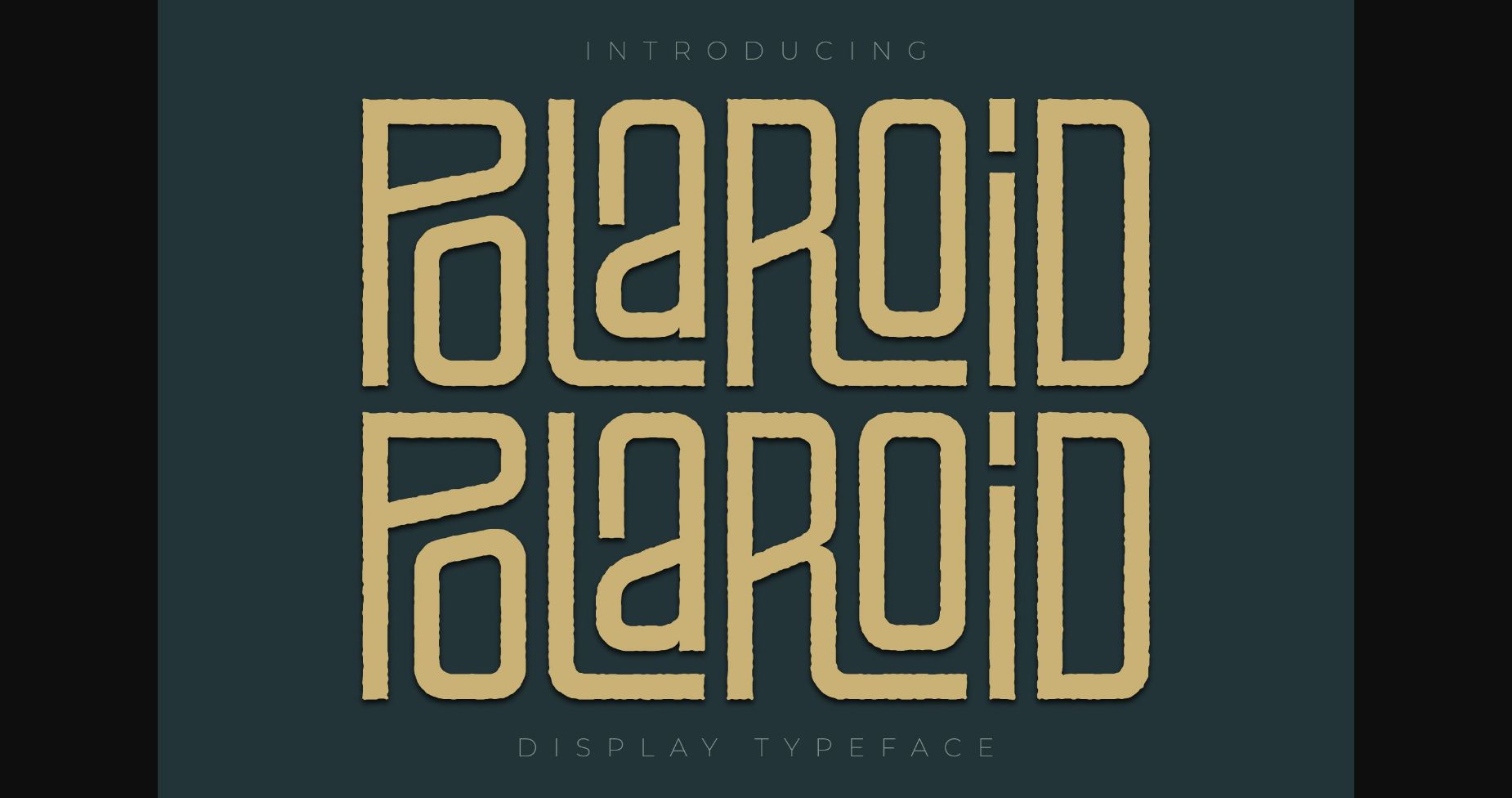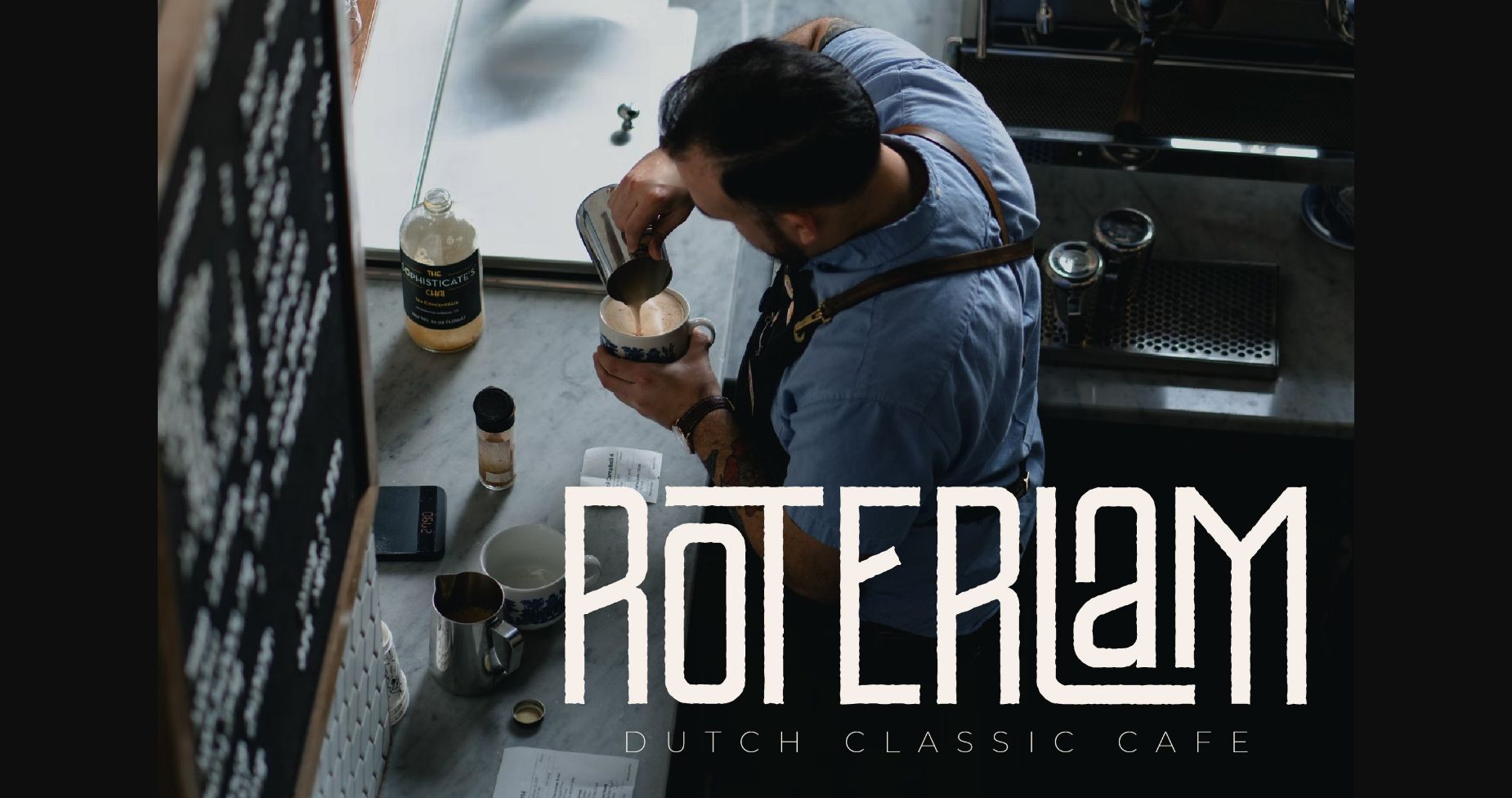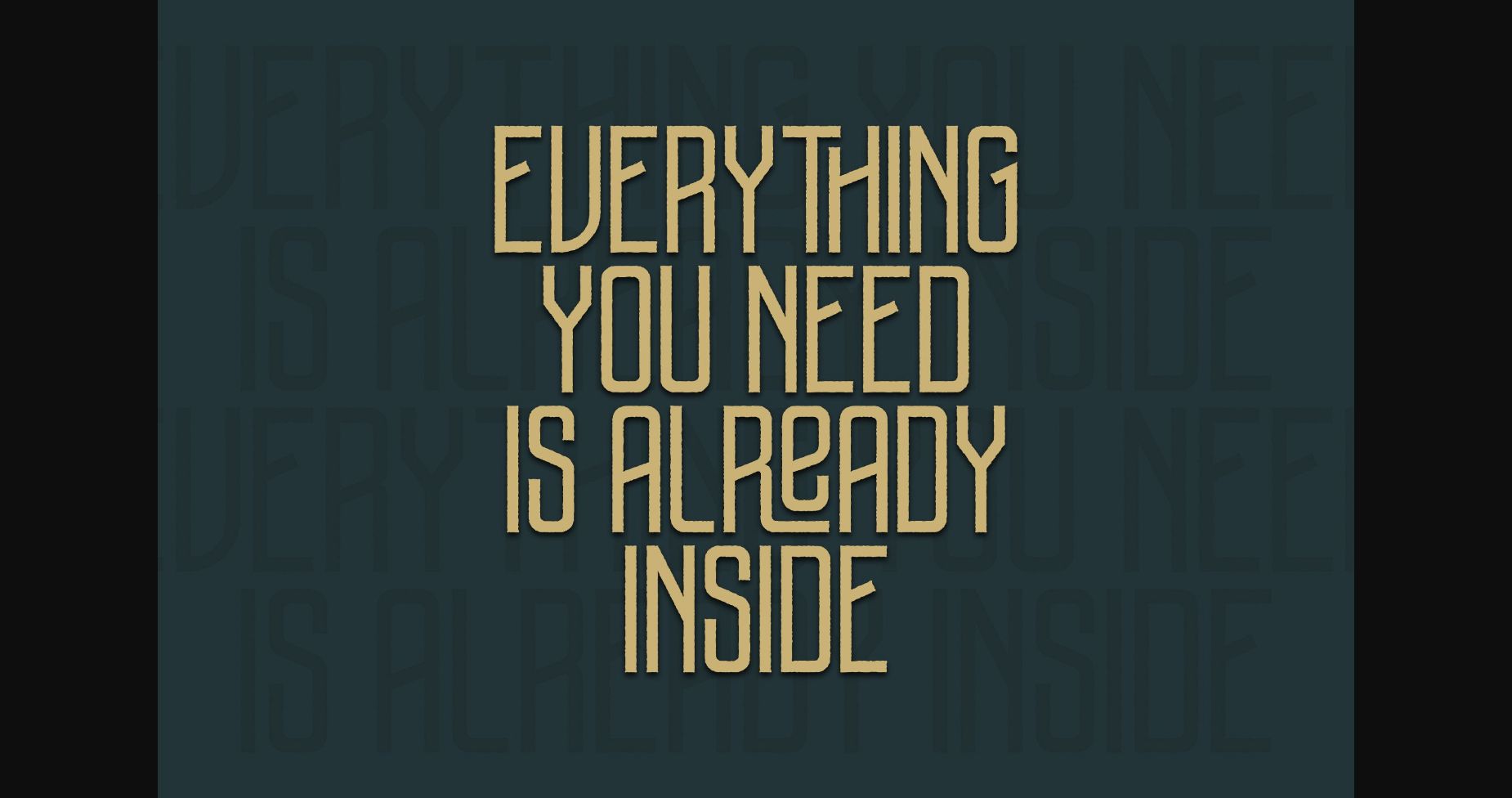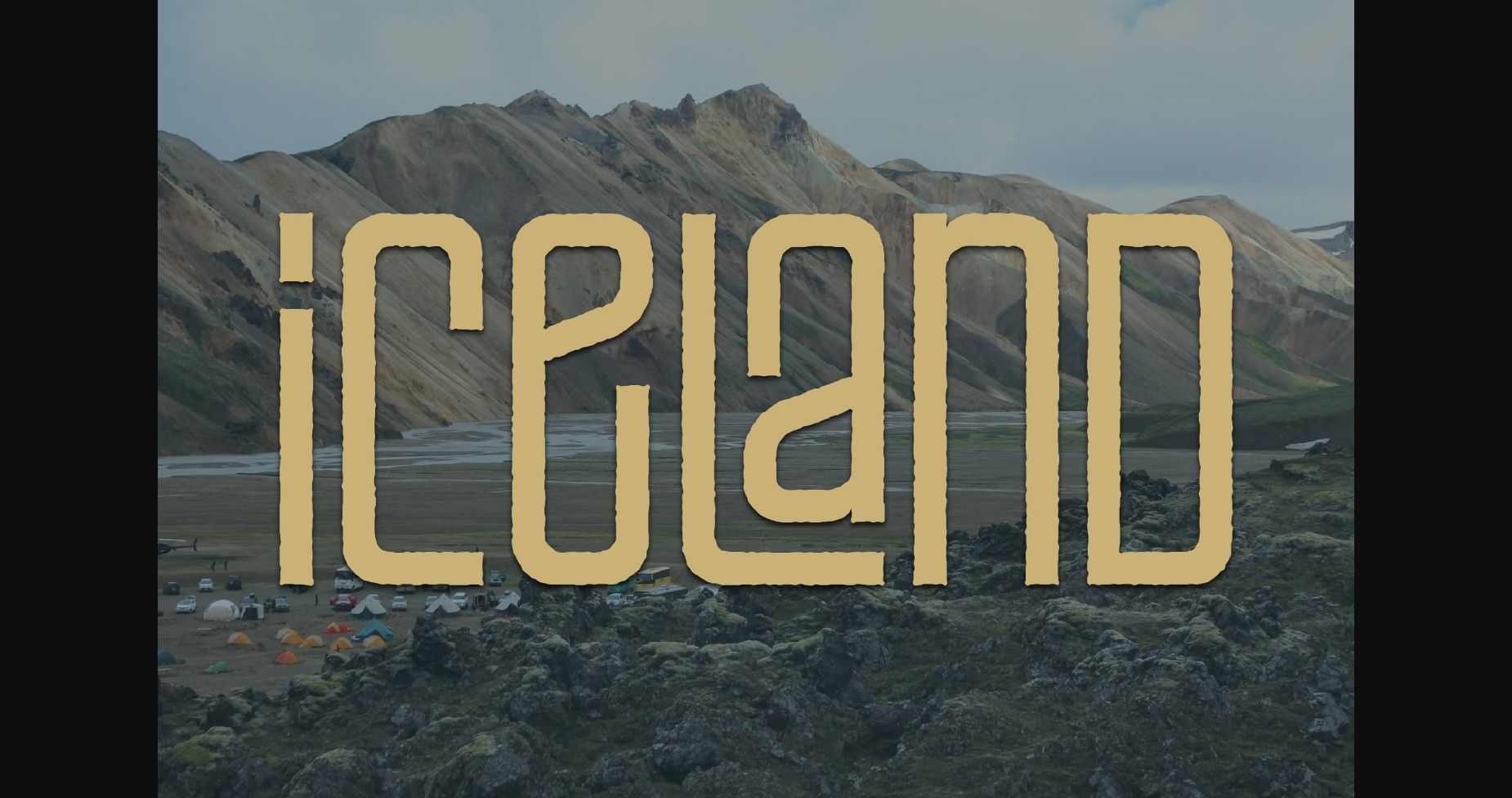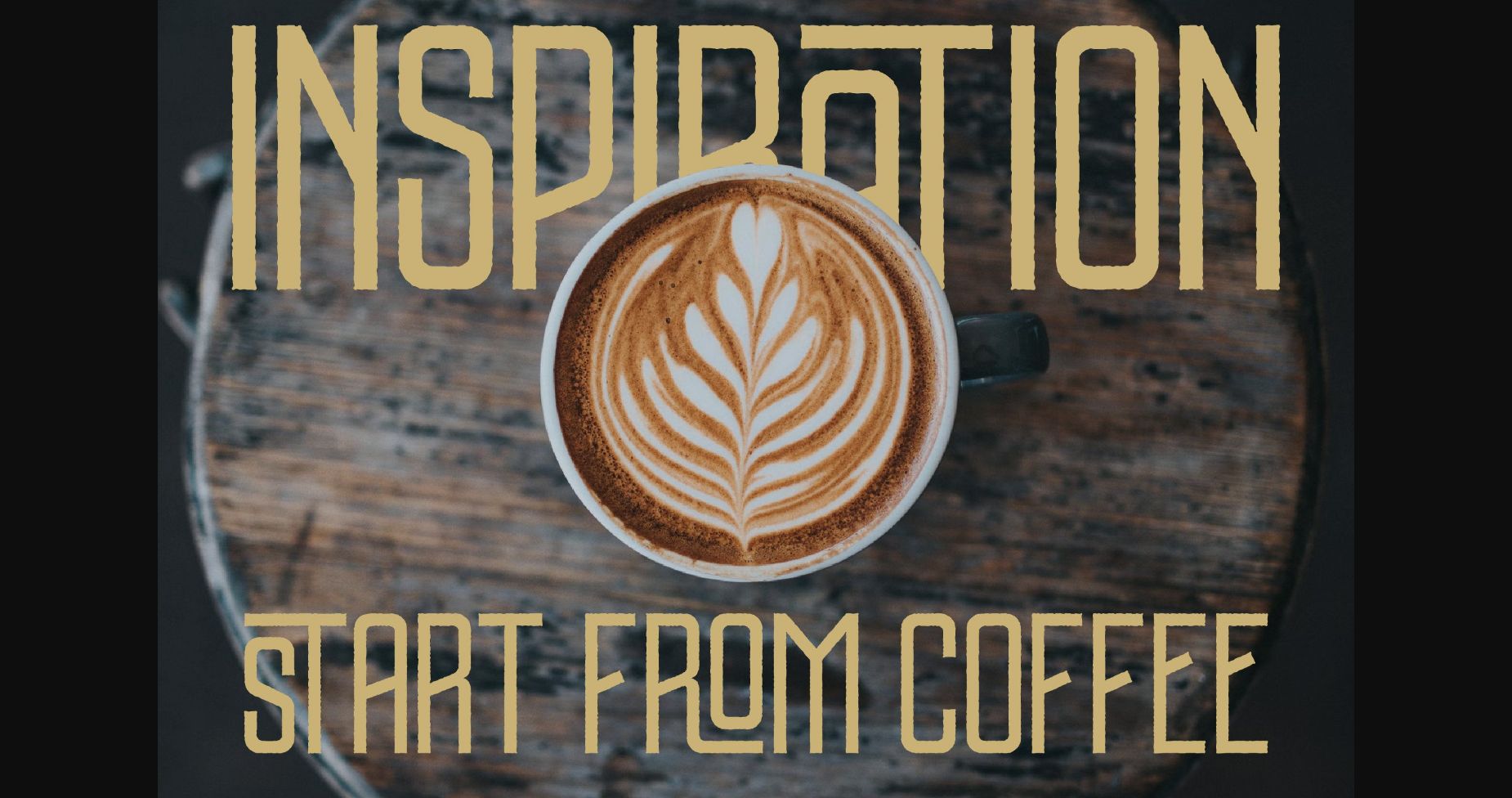
About Polaroid Font
Polaroid is a modern and classic sans serif font with a unique style and modern look.
This typeface is perfect for an elegant & luxury logo, book or movie title design, fashion brand, magazine, clothes, lettering, quotes, and so much more.